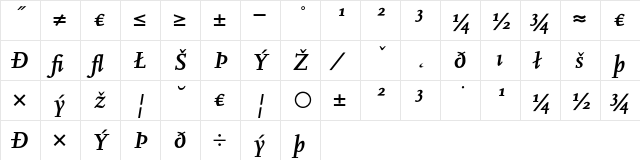
Scala Expert Bold Italic Font Preview
Design Context for Scala Expert Typeface
Scala Expert takes a measured approach to typography — its balanced proportions and neutral character make it a reliable workhorse for both digital and print work. Its italic angle brings a sense of urgency and motion to the letterforms. The heavy weight commands attention and anchors typographic hierarchies.
Pro Tip: Try Scala Expert for annotation and caption copy alongside an upright companion — the contrast in angle creates a dynamic but ordered typographic system.